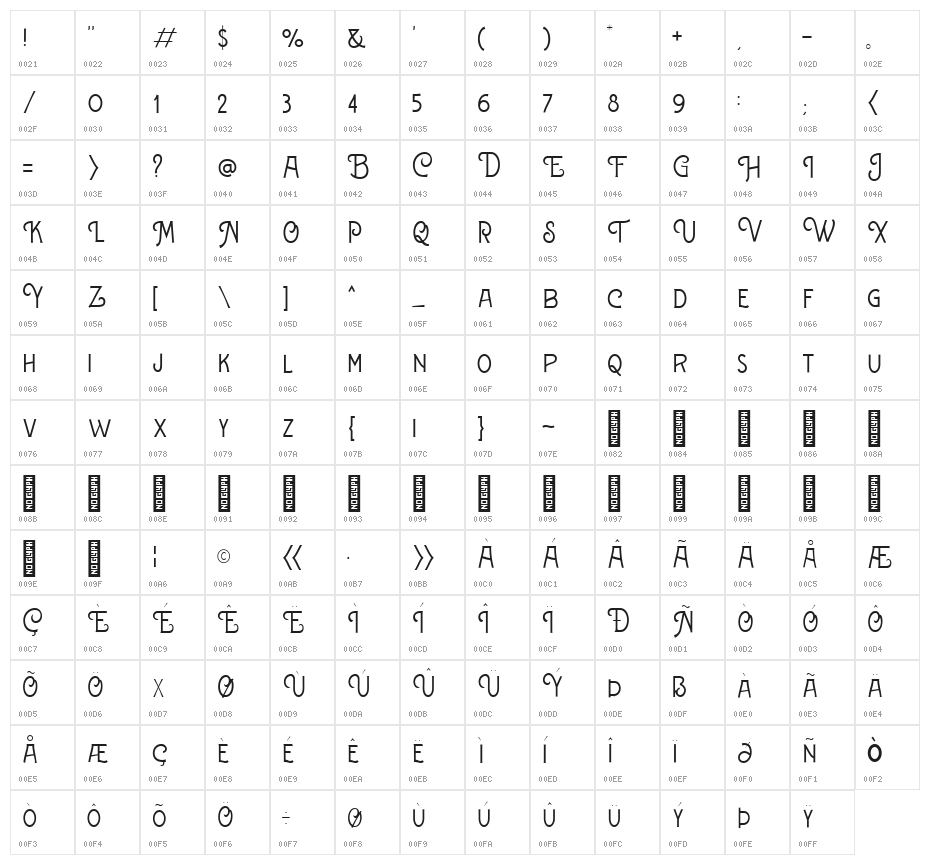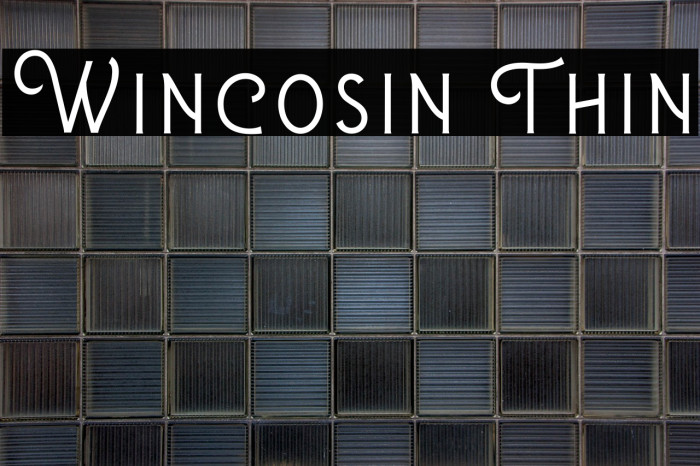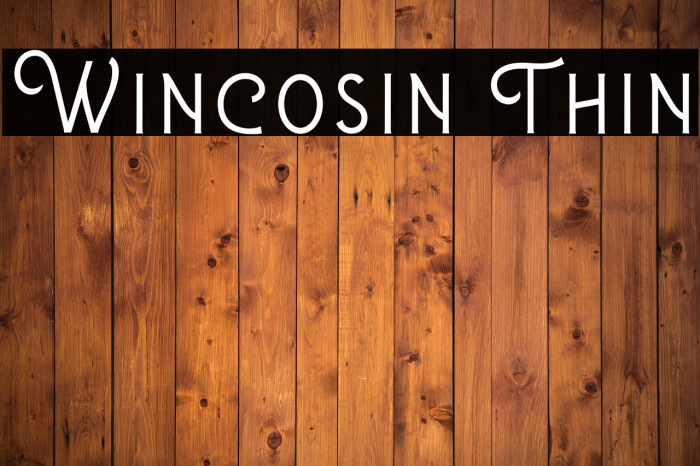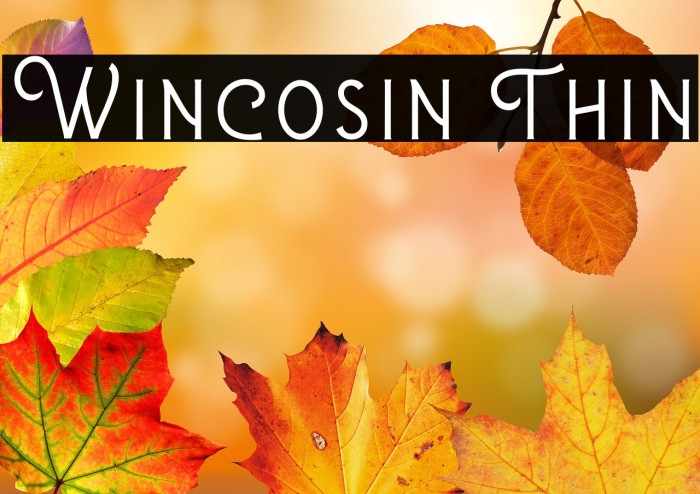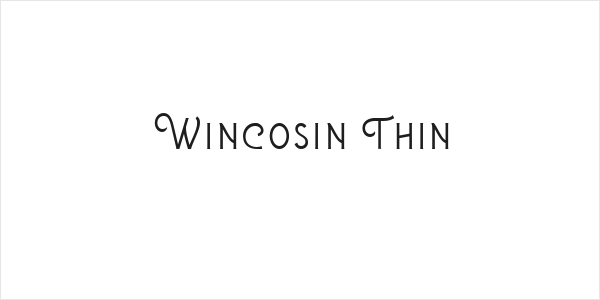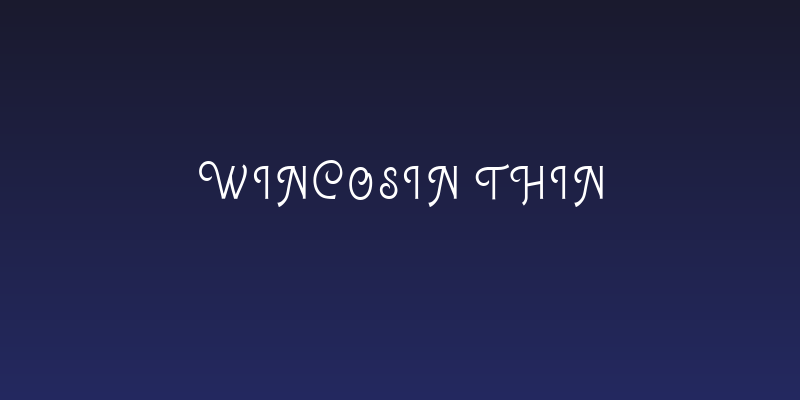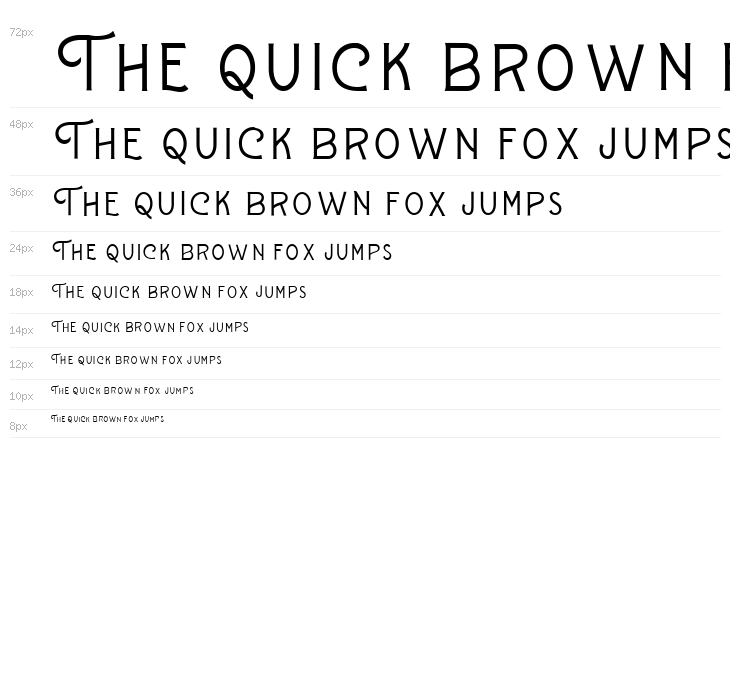
Wincosin Thin Font
Wincosin Thin Description
This font features a unique blend of modern and decorative elements, characterized by its thin, elegant strokes and subtle curves. The uppercase letters exhibit a distinct flair, with some characters incorporating gentle swirls and loops, adding a touch of sophistication. The lowercase letters maintain a consistent style, offering a harmonious balance between readability and artistic expression. The numerals are clean and straightforward, ensuring clarity in numerical displays. Special characters are thoughtfully designed to complement the overall aesthetic, making this font versatile for various applications. Its thin weight and decorative style make it suitable for projects that require a touch of elegance and creativity.